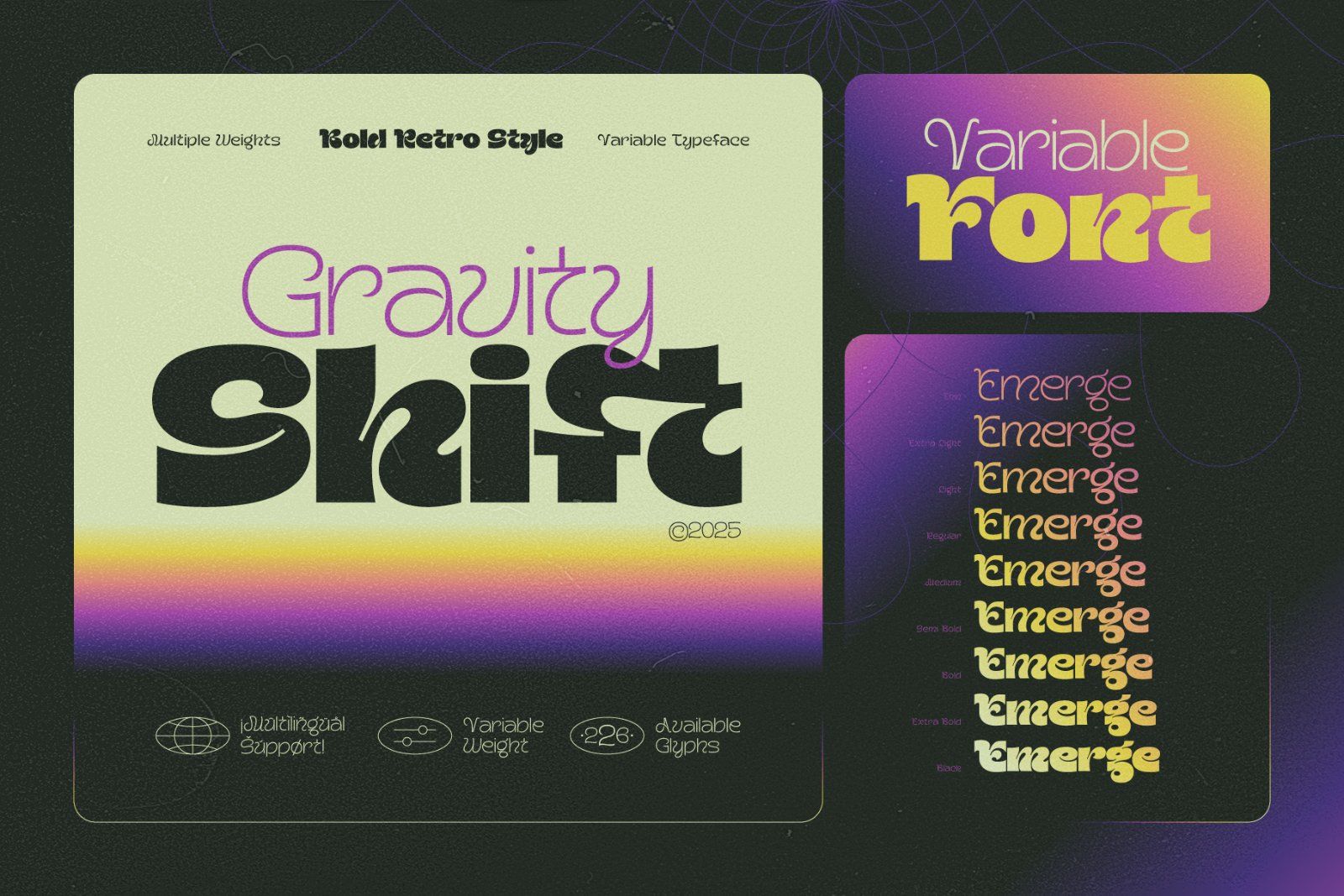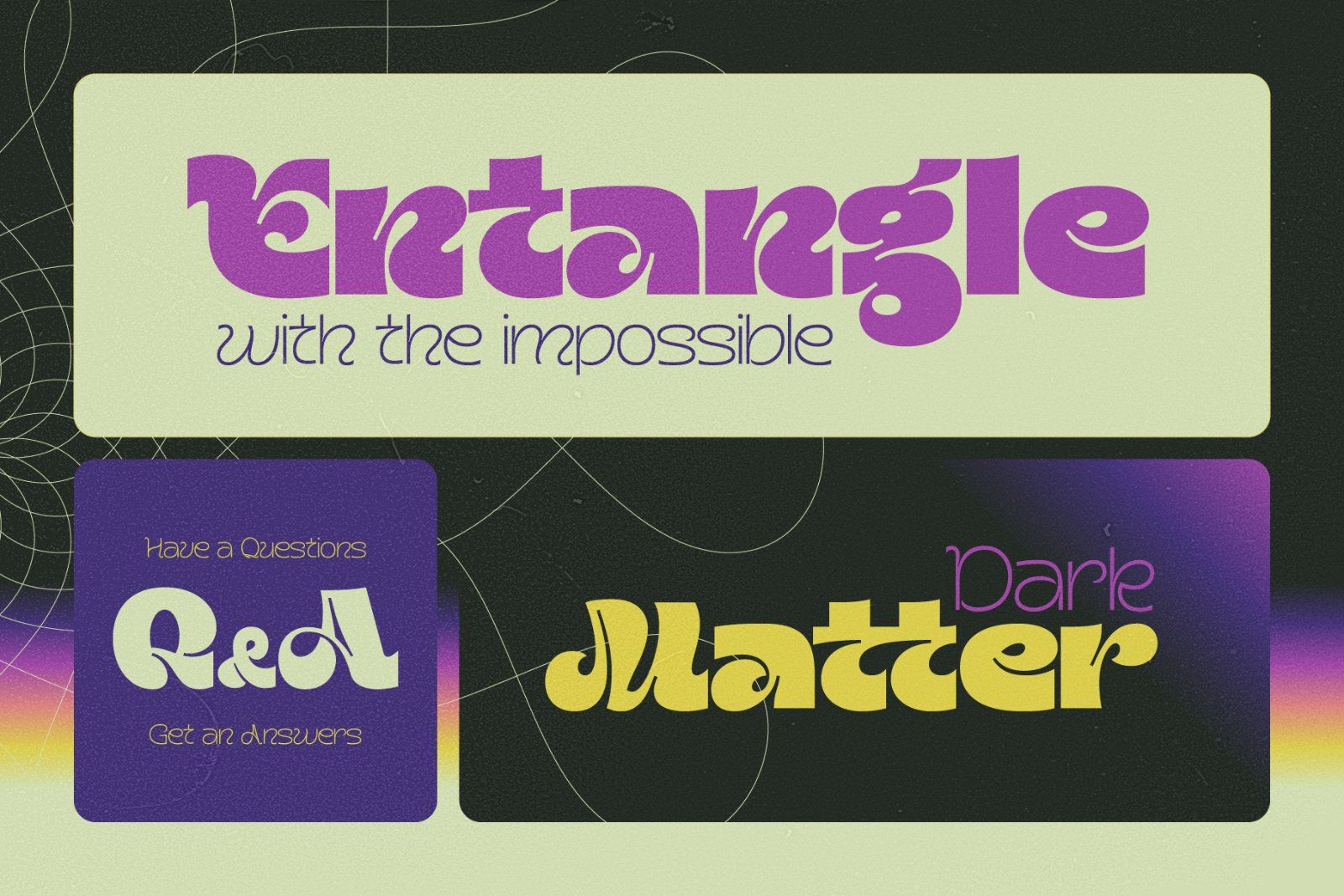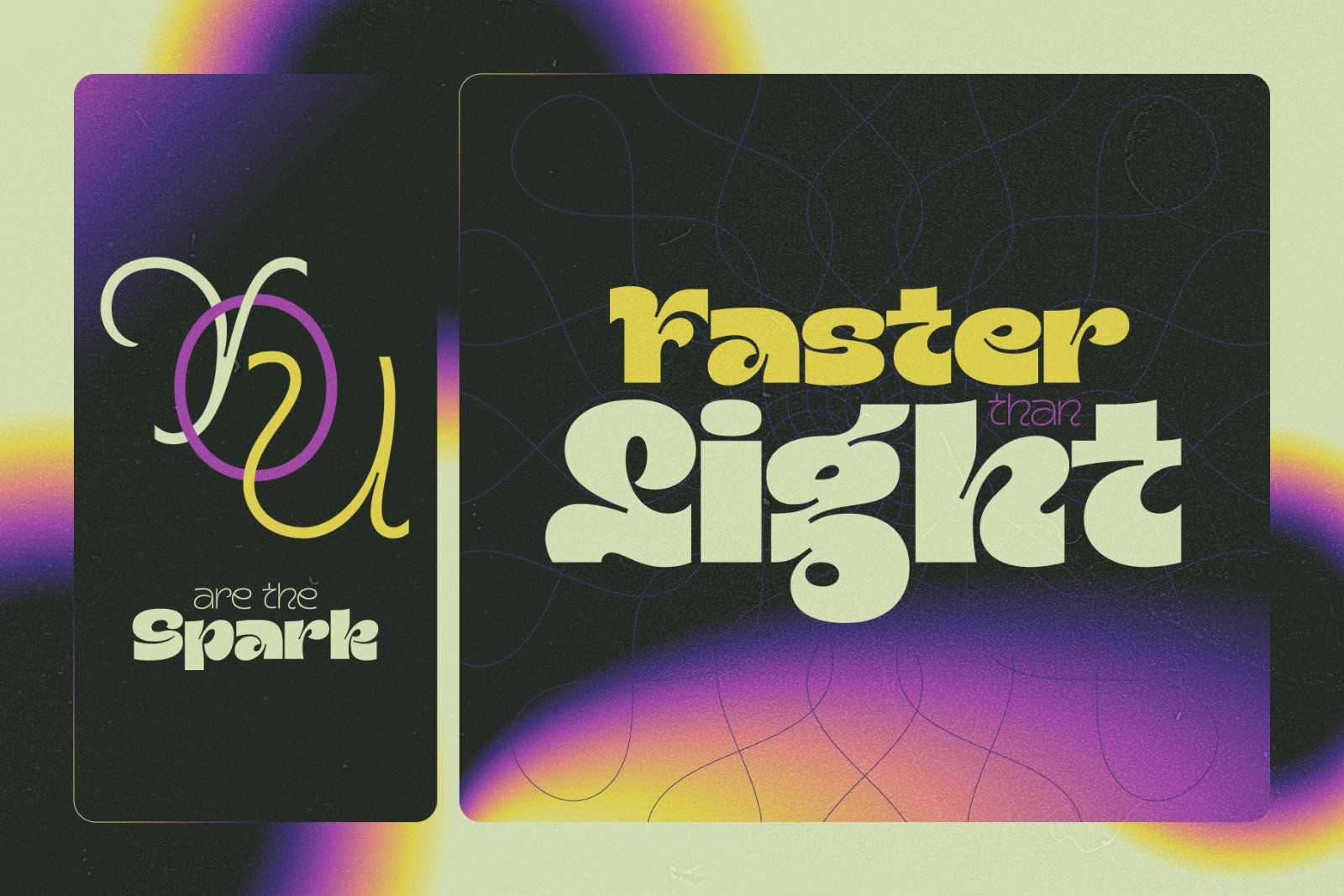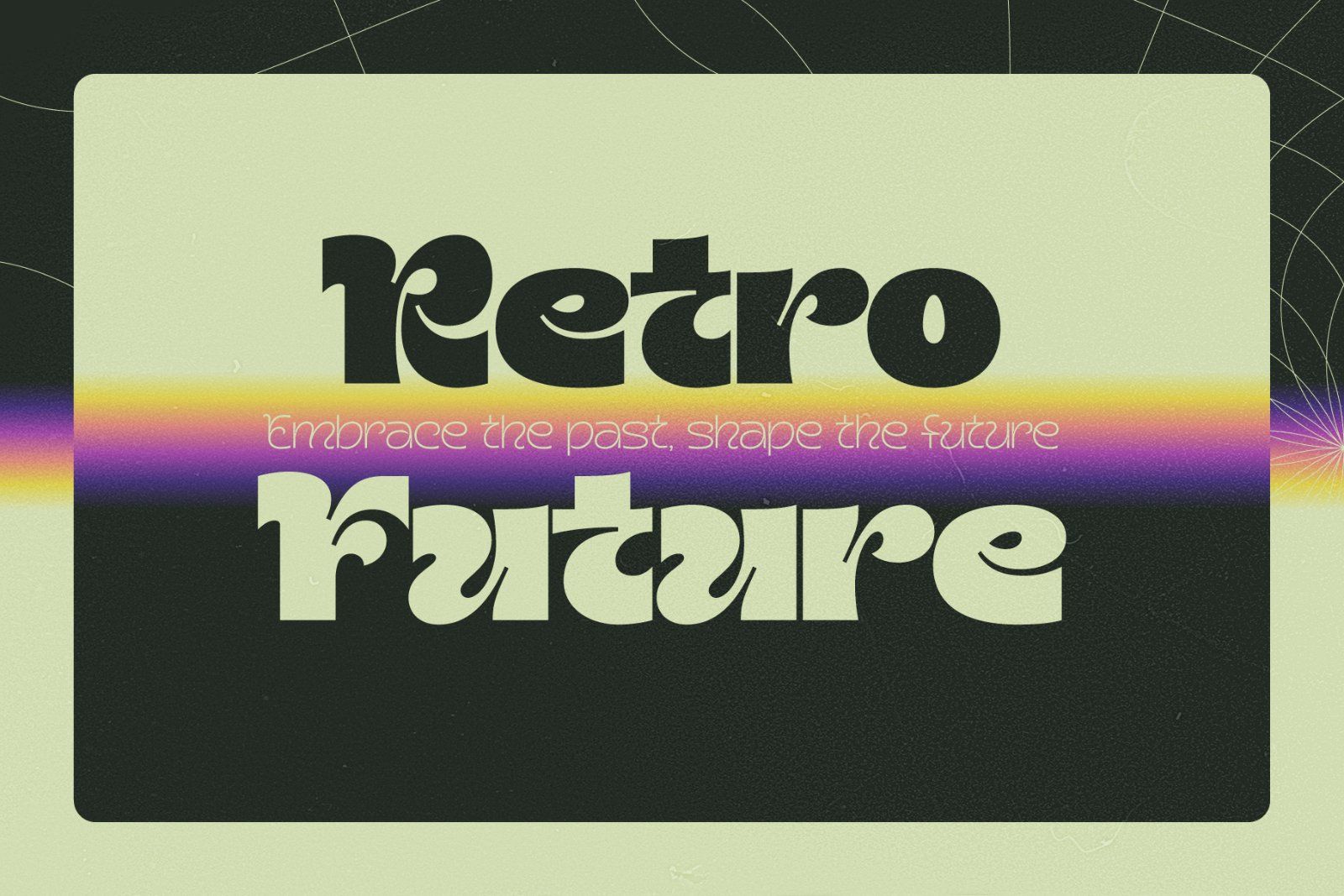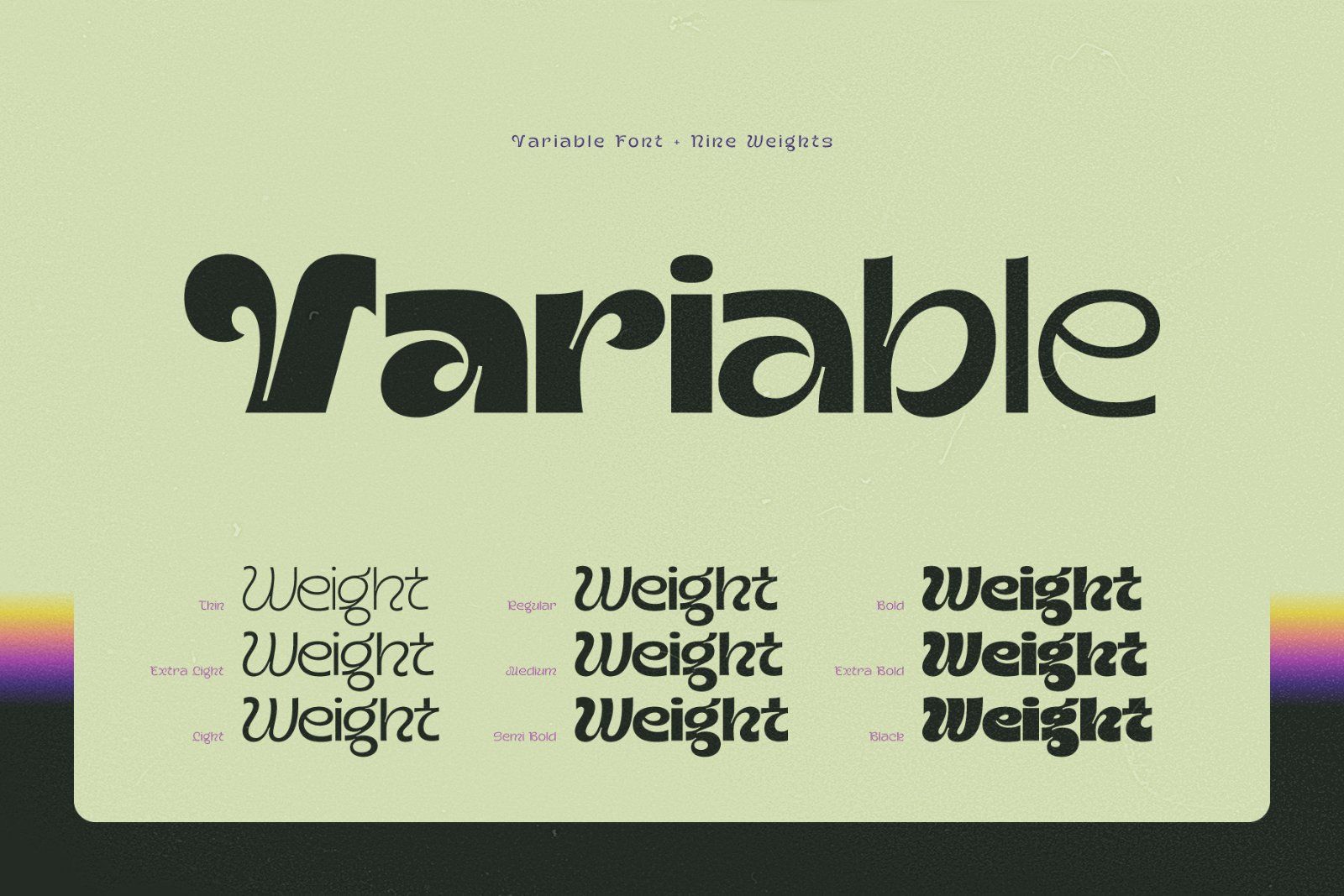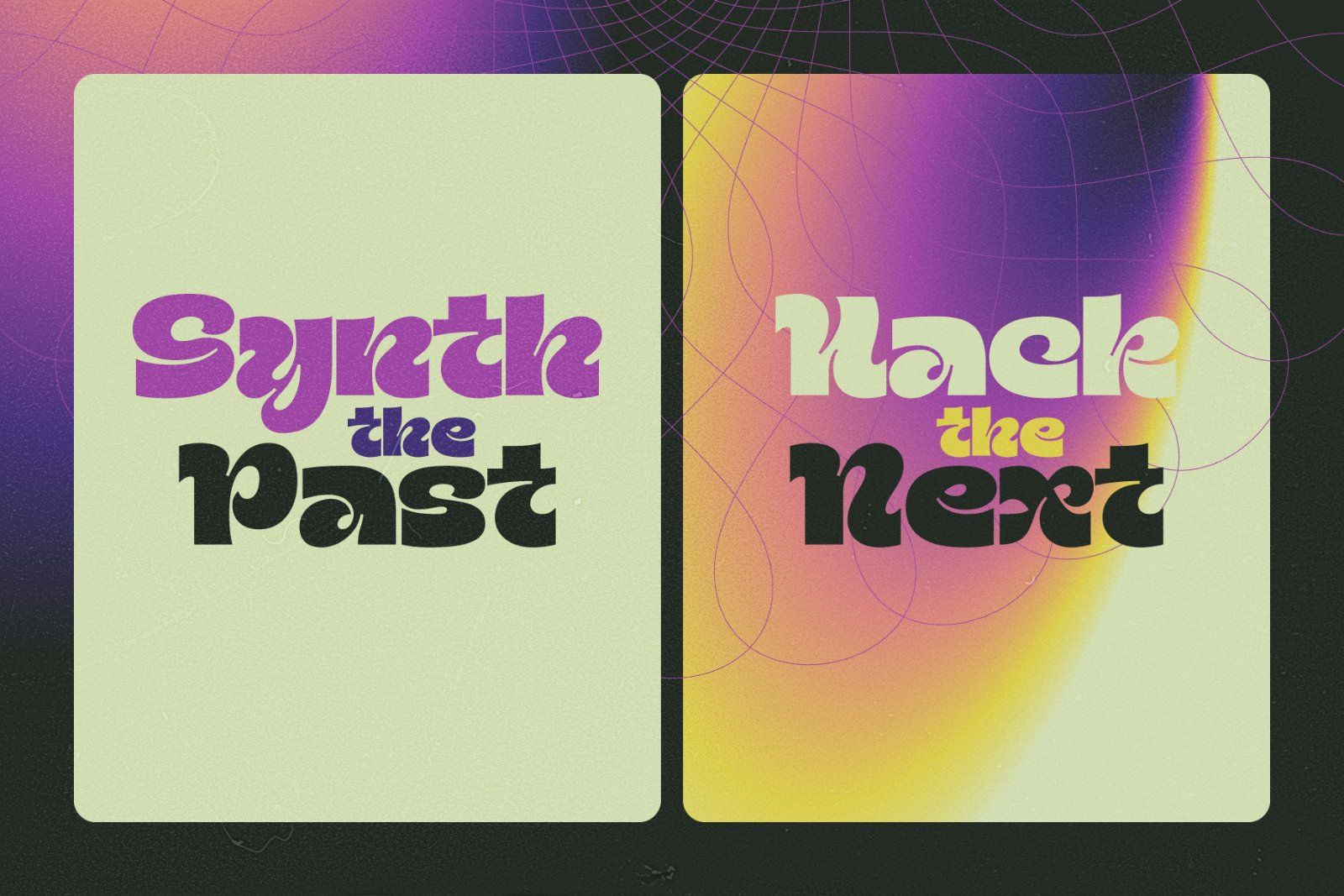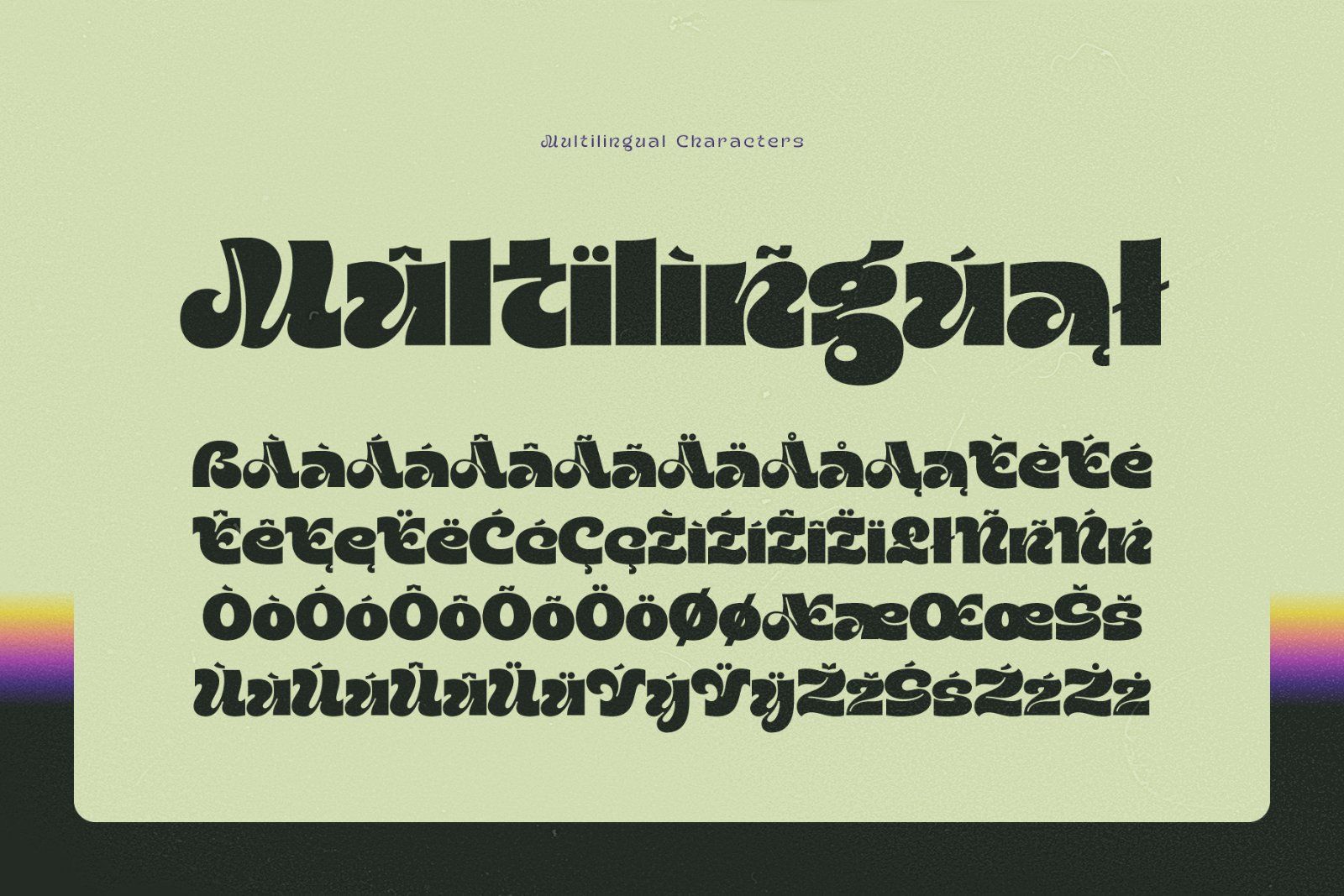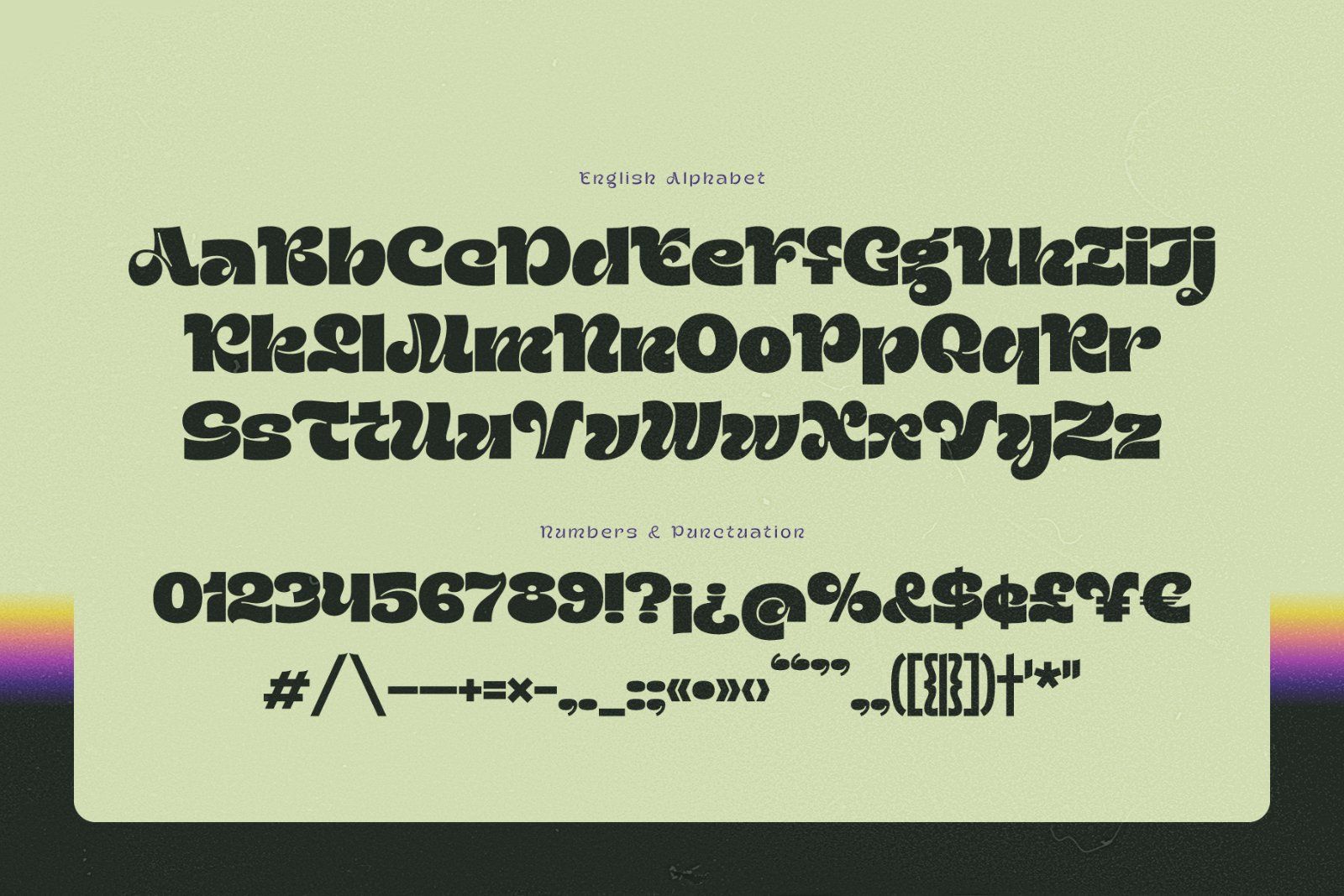
Gravity Shift is a retro-futuristic variable font with a bold yet elegant shape. Inspired by science-age design it shifts effortlessly between light and heavy styles. Perfect for sci-fi themes, bold branding, and vintage tech aesthetics, it balances strength with sophistication.
Gravity Shift font family set includes 9 typefaces with different weights from Thin to Black. Variable version includes all of the above mentioned types. Gravity Shift has multilingual support, check out a screenshot with available characters.